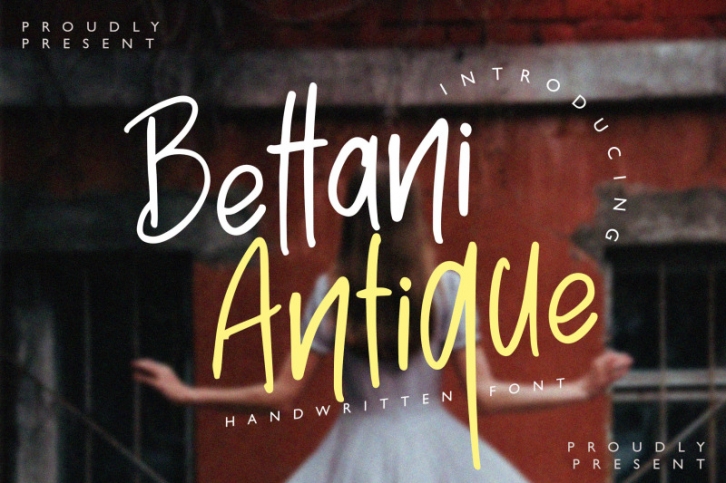
Bettani Antique - Handwritten Font Download
Bettani Antique is a beautiful handwritten font with vintage style. Is a font style that is made with handwritten scratches shapes font characters are very beautiful. Can be applied to support the graphic appearance of the product to be more attractive and unique. This font is very nice for designing previews and covers design, logo designs, shirt designs, and other graphic needs.
• Ligature
• Stylistic Alternate
• Swashes